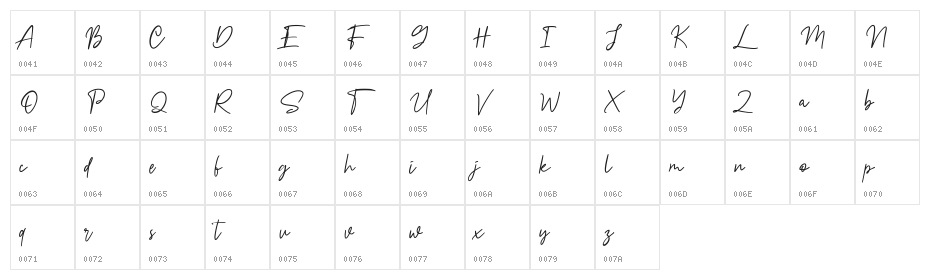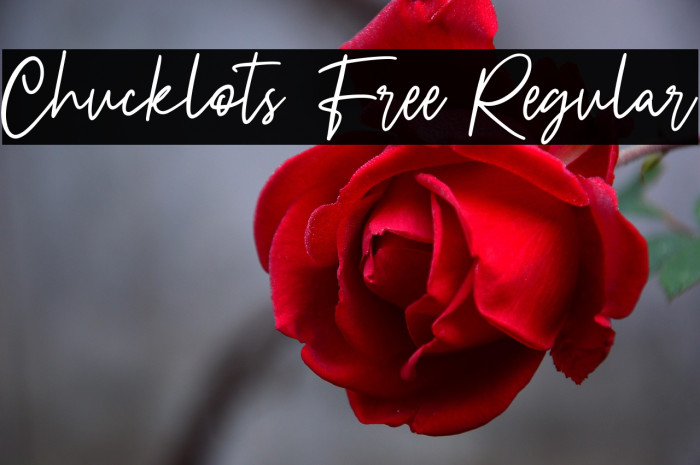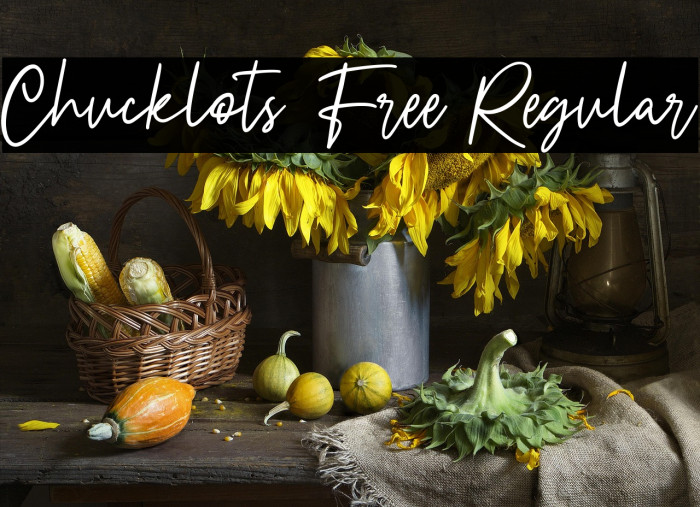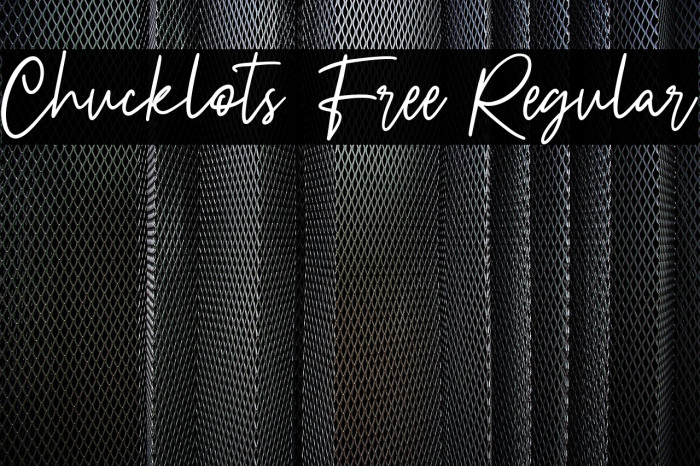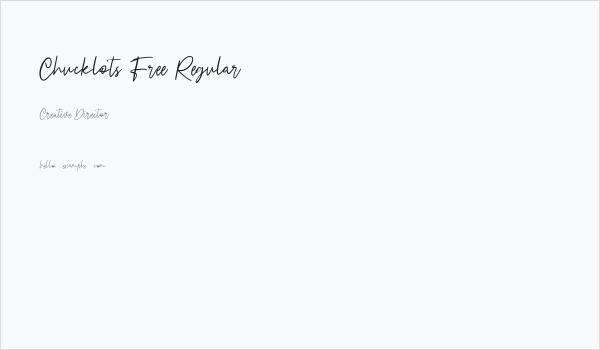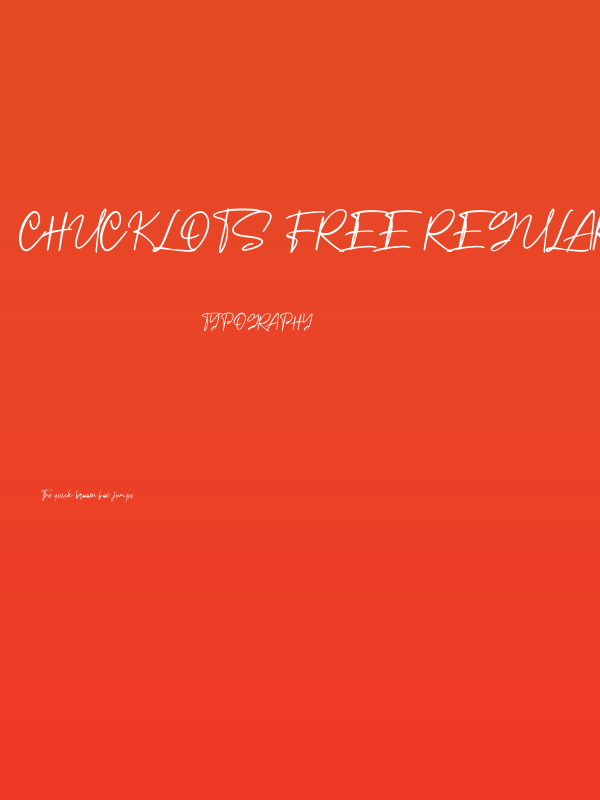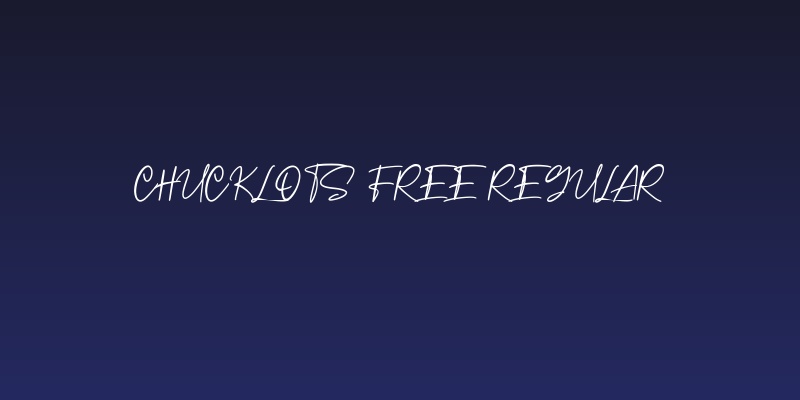
Chucklots Free Regular Font
Chucklots Free Regular Description
This font features a lively and expressive handwritten style, characterized by its fluid and dynamic strokes. The letters are interconnected with a natural flow, giving it a personal and informal appearance. The uppercase and lowercase letters maintain a consistent style, with a slight slant that adds to its casual elegance. The font's playful nature is enhanced by its varying stroke widths, which provide a sense of movement and energy. It's well-suited for creative projects that require a touch of personality and charm.